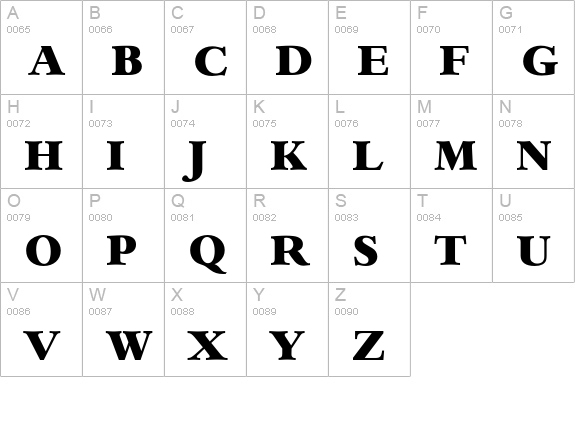
Bernstein-ExtraBold is an extra-heavy, attention-grabbing variant in the Bernstein typeface family \xE2\x80\x94 well suited to high-impact headlines, posters, and bold branding.
Introducing Bernstein-ExtraBold font - a bold and impactful typeface designed to make a statement. With its strong, thick strokes and assertive presence, Bernstein-ExtraBold demands attention and exudes confidence. Perfect for headlines, titles, and branding projects that require a bold touch, this font is sure to leave a lasting impression. What makes Bernstein-ExtraBold even more appealing is that it is available for free download at FontsMarket.com. That's right, you can easily access this powerful font without any cost, making it an ideal choice for designers and creators looking to add a touch of boldness to their projects without breaking the bank. Whether you're working on a poster, logo, or any design that needs a bold and commanding font, Bernstein-ExtraBold is here to help you make a statement. Download it for free today and unleash the power of bold typography in your creative endeavors.